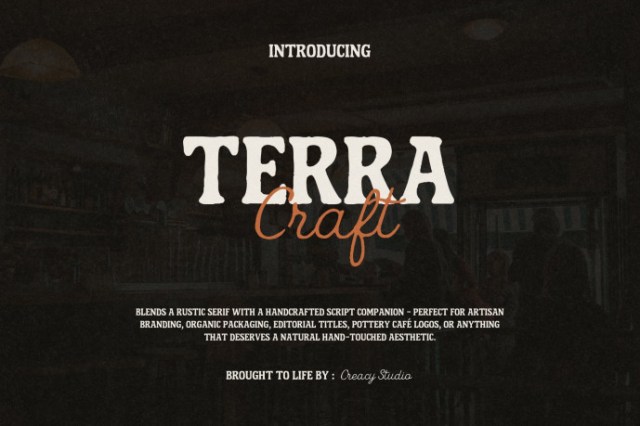
Terra Craft Font
Designer: waywee_creative
Terra Craft Font is a handcrafted font duo combining a bold rustic serif with a flowing script. It delivers a natural, organic, and vintage-inspired aesthetic perfect for artisan branding and crafted design projects.
Features
• Rustic Serif + Handcrafted Script
• Uppercase & Lowercase
• Numbers & Punctuation
• Multilingual Support
Suitable For
• Branding & Logo Design
• Packaging & Labels
• Editorial Titles & Posters
• Café & Signage Design
• Merchandise & Craft Projects